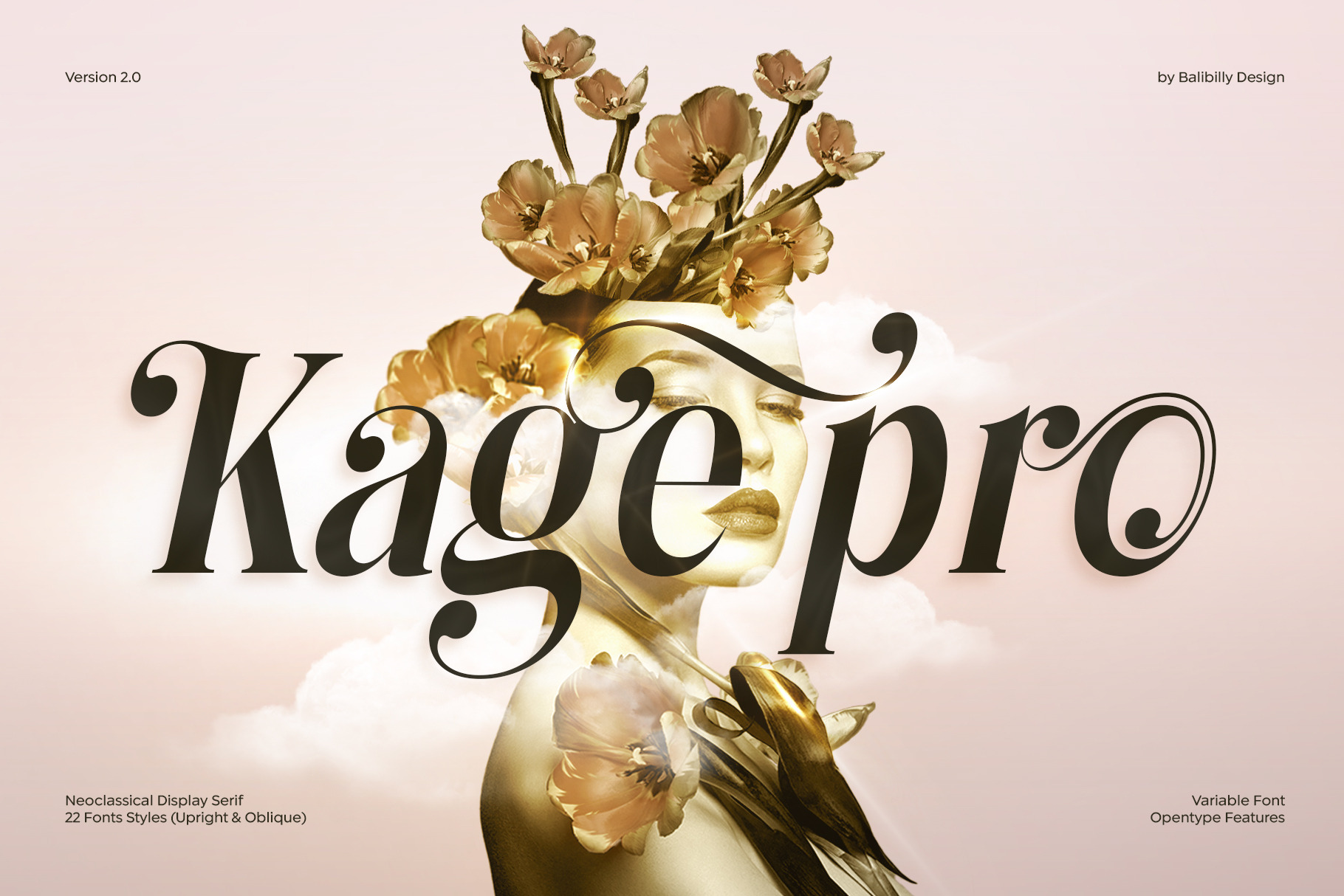
Kage Pro - Neoclassical Display Font
Greetings: We are introducing an advanced version of the Kage font released and received great exposure from users and worldwide font enthusiasts. The massive development puts forward experimentation on the alternate letters. We redesign each shape to make it more functional and comfortable when text size escalation occurs. In addition to rejuvenating the letterform, we also apply an oblique style to provide diverse style choices.
The Inspiration: The radical exploration world of fashion inspires us. It leads our minds to the Neo-classical type style created during the age of enlightenment in the 18th century. It has a reasonably extreme contrast from the previous serif style, making the impression that it is emitted more expensive and classy. Organically, this Neo-Classical typeface is closely related to the fashion world, especially in Europe, and even spread across the globe. Fashion and this typeface reflect each other. After, we boldly observed Japanese fashion designer Rei Kawakubo. Famous for radical & deconstructive fashion, which makes the world of fashion more flexible and dynamic.
The Design: As well as the typeface that we made, we started it with a cultural foundation of the Didone typeface. We tried to deconstruct the appearance. The decoration that better reflected the dynamic of fashion implemented in the fashionable alternate and calligraphical stylistic set ended with ball terminals. The versatile impression created is like taking off a scarf on the model's hair during a fashion show. The deconstructive image is combined with a legibility structure like the appearance of the Neo-Classical style. Kage Pro is designed to visualize a costly and exclusive image of a thing, product, world clothing brand, famous fashion magazine, etc. The modern transitions of each letterform are softer, so when repositioning and escalating the size of this font, it will remain beautiful without injuring other elements. So, Kage Pro is a bold choice on headlines and more prominent media with a portion of 50% even more.
The Feature: Kage Pro has 11 upright and 11 oblique styles from thin to black; all family-style consist of one variable font with 2 axes. The total number of glyphs is 1,665 in each style. She comes with tons of swirly ligatures and stylistic alternates in Advance OpenType features, including: Case-sensitive forms, small caps, standard and discretionary ligatures, stylistic alternates, ordinals, fractions, numerator, denominator, superscript, subscript, circled number, slashed zero, old-style figure, tabular and lining figure. Support multi language including Western European, Central European, Southeastern European, South American, Oceanian, Vietnamese.